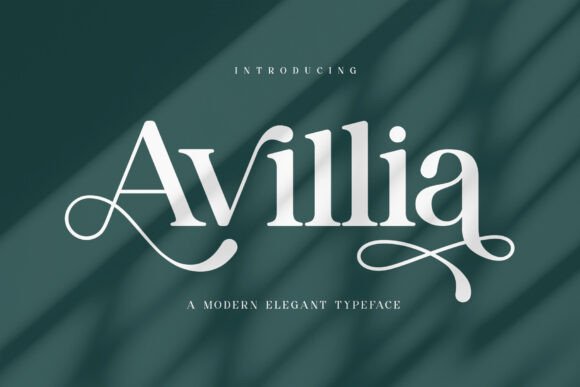
Introducing Avillia Font: The Elegant and Bold Serif for Your Creative Projects
Are you looking for a font that exudes elegance and sophistication? Look no further than Avillia Font, a stunning serif font that is sure to capture your heart. With its incredibly versatile style, Avillia is perfect for a wide range of creative projects, from wedding invitations and stationery to social media posts and more.
What Makes Avillia Font So Special?
- Elegant and Bold: Avillia’s serif design gives it a classic, sophisticated look that’s perfect for projects where you want to make a statement.
- Incredibly Versatile: Whether you’re creating wedding invitations, social media posts, or stationery, Avillia’s versatile style ensures it will fit right in.
- Highly Readable: Despite its bold design, Avillia remains highly readable, even at smaller font sizes.
10 Inspiring Ideas for Using Avillia Font
- Wedding Invitations: Create beautiful, elegant wedding invitations that set the tone for your special day.
- Stationery: Add a touch of sophistication to your stationery, including letters, cards, and journals.
- Social Media Posts: Stand out on social media with eye-catching posts that showcase your brand’s personality.
- Logos and Branding: Use Avillia as a base for your logo or branding, adding a touch of elegance to your business’s image.
- Packaging: Elevate your product packaging with Avillia’s sophisticated design.
- Advertising: Create stunning adverts that grab attention and leave a lasting impression.
- Signage: Use Avillia for signage, including menus, directional signs, and more.
- Digital Art: Incorporate Avillia into your digital art, including illustrations, graphics, and more.
- Infographics: Add a touch of elegance to your infographics, making complex information more engaging.
- Presentations: Use Avillia to create stunning presentations that impress your audience.
Typography Tips for Using Avillia Font
To get the most out of Avillia, here are some typography tips to keep in mind:
- Pair with Sans-Serif: Pair Avillia with a sans-serif font for a striking contrast that adds visual interest.
- Experiment with Sizes: Play with different font sizes to create visual hierarchy and emphasize key information.
- Use Color Wisely: Select colors that complement Avillia’s elegant design, such as rich jewel tones or soft pastels.
Avillia Font is a stunning serif font that is sure to capture your heart. With its elegant and bold design, versatility, and readability, it’s perfect for a wide range of creative projects. Whether you’re a designer, artist, or simply someone who appreciates beautiful typography, Avillia is a must-have font in your collection.